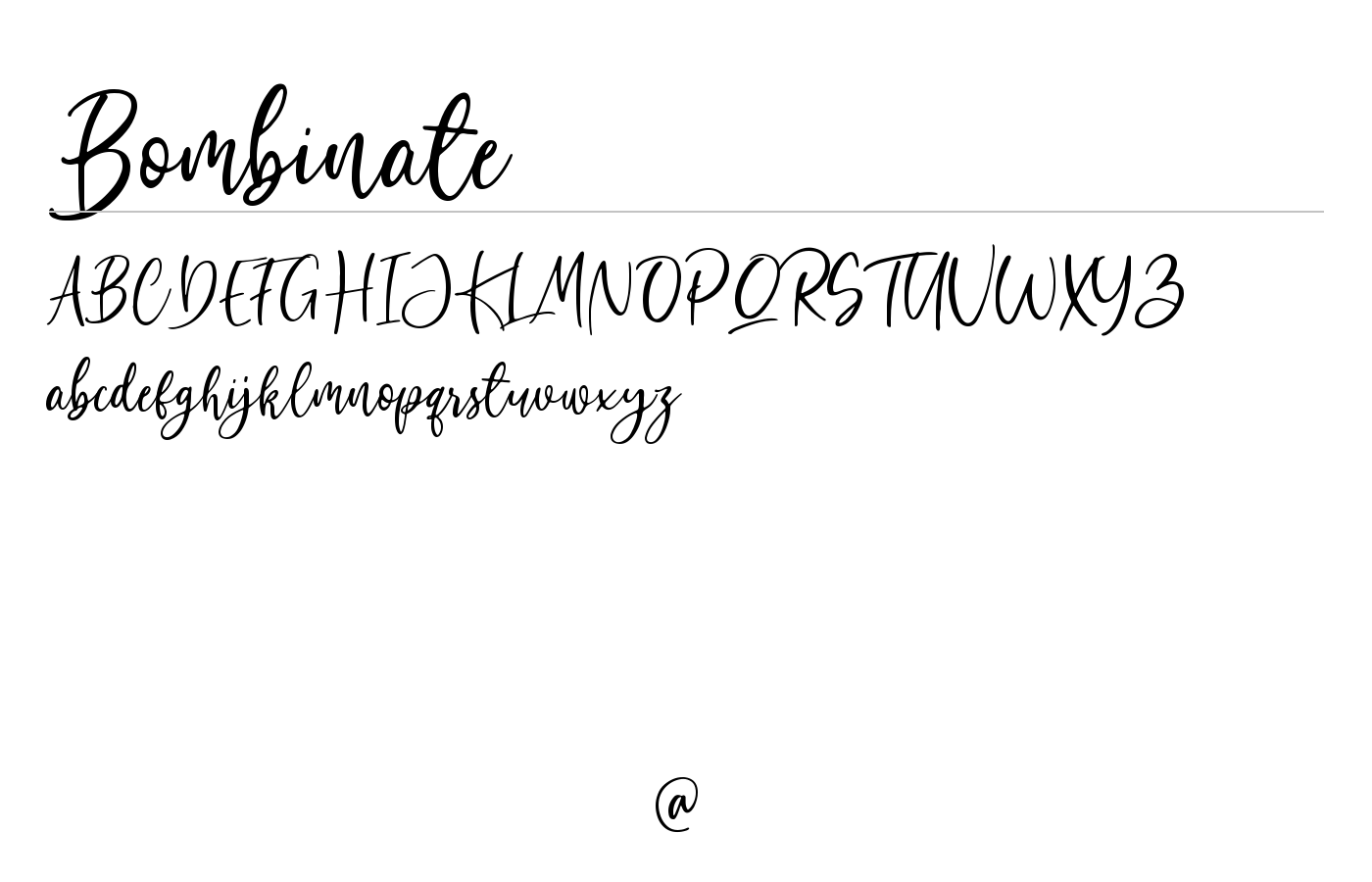
Bombinate is a stylish, handwritten script font with smooth, flowing strokes and elegant, tall letterforms that convey a personal and friendly vibe. Its light, slightly condensed style with unique character shapes makes it perfect for branding, invitations, and creative projects where a touch of sophistication and warmth is desired. This font works especially well in logos and headlines, adding a handcrafted charm without compromising readability.
Bombinate Font
About Bombinate Font